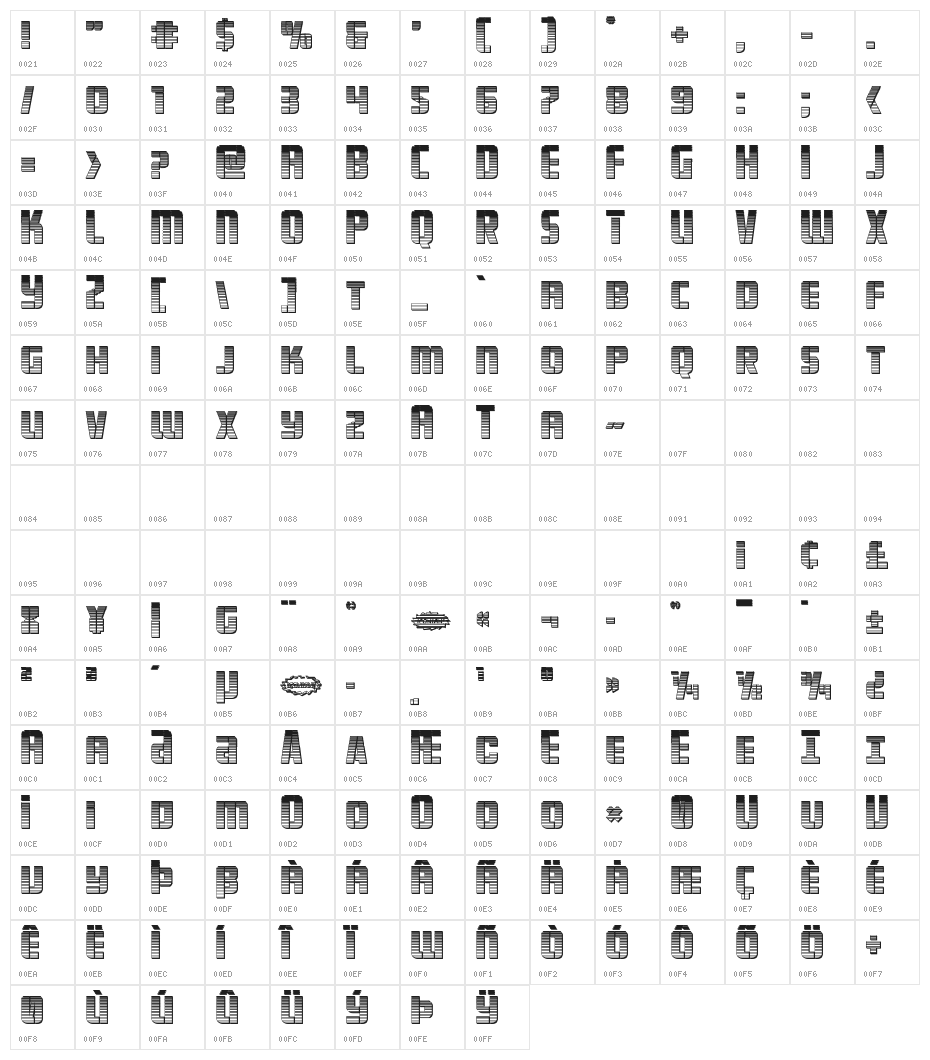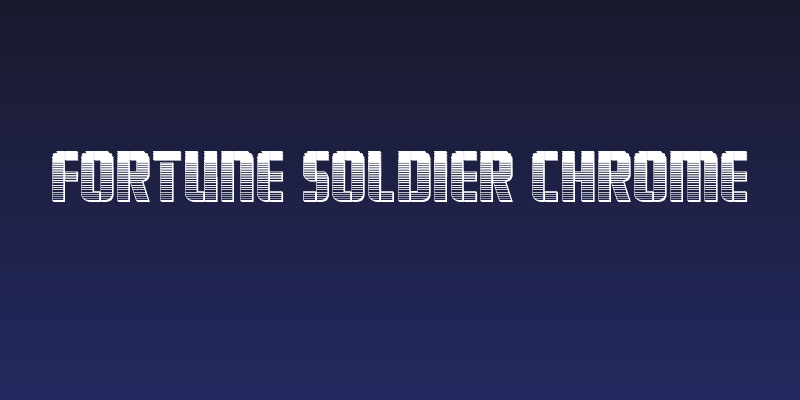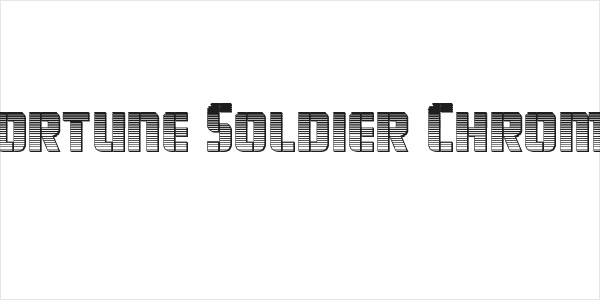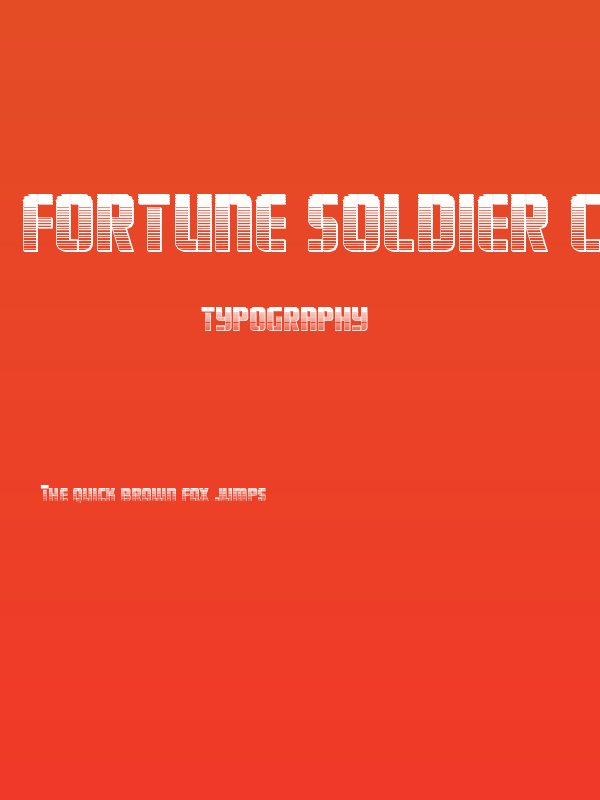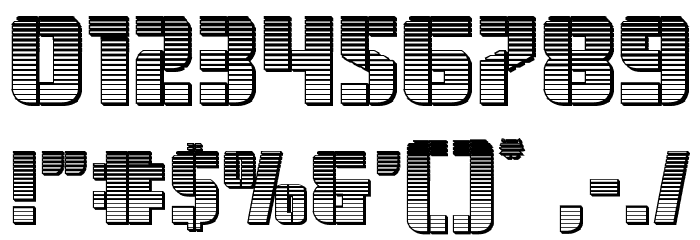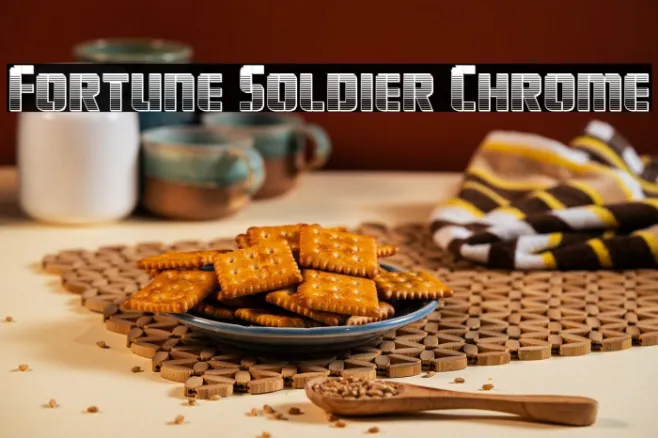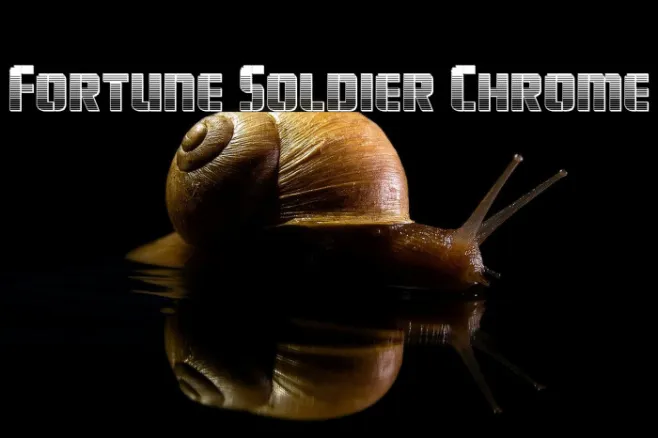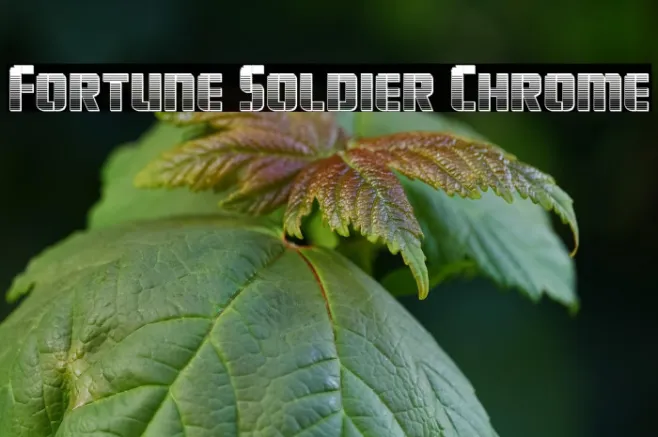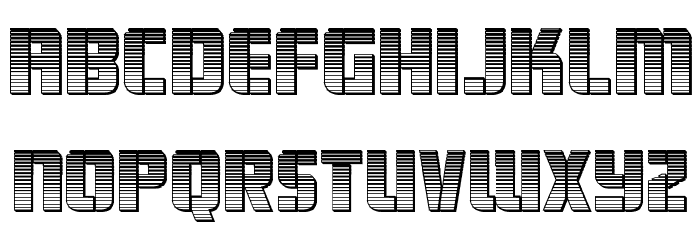
Fortune Soldier Chrome Font
Fortune Soldier Chrome Description
This font features a bold, decorative style with a distinct 3D effect created by horizontal lines running through each character. The uppercase letters are blocky and geometric, giving a strong, industrial feel. The characters are uniformly wide, contributing to a consistent and structured appearance. The numbers and special characters maintain the same design principles, ensuring a cohesive look across all glyphs. The font's unique design makes it stand out, suitable for projects that require a striking and modern aesthetic.
| Proposed Projects | Ideal for posters, logos, headlines, and any design needing a bold, eye-catching typeface. |